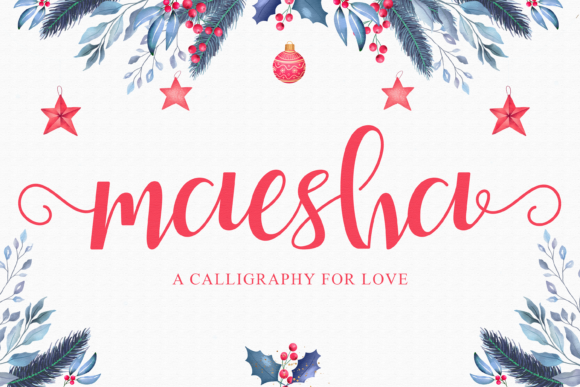
Maesha Font, a creation of DYSA Studio, is an exquisite script font that embodies elegance and grace. Inspired by the allure of fashion blogs, Maesha exudes a timeless charm that effortlessly elevates designs with its delicate strokes. Its graceful curves and intricate details evoke a sense of sophistication and femininity, making it the perfect choice for adding a touch of refinement to logos, business cards, and invitations. With Maesha Font, your words will come alive with a touch of handwritten allure, captivating your audience with its undeniable beauty. Embrace the timeless allure of Maesha Font and let your designs radiate with style and sophistication.
As a business owner, you understand the importance of branding that resonates with your audience. Maesha Font's ability to command attention and convey a sense of sophistication and style will help you create a brand identity that effortlessly attracts the right customers. Whether you're crafting a stunning logo, designing captivating social media graphics, or creating eye-catching marketing materials, Maesha Font's elegance and charm will elevate your designs, ensuring that your brand stands out from the competition.
For personal use, Maesha Font is the secret weapon for adding a touch of timeless style to life's precious moments. Imagine the delight of receiving a heartfelt thank-you note handwritten in Maesha Font, its delicate strokes conveying the depth of your gratitude. Or the joy of capturing special memories in a scrapbook, each page adorned with Maesha's graceful curves, transforming them into cherished heirlooms. Birth announcements, invitations, and greeting cards take on an enchanting charm with Maesha Font, making every occasion truly unforgettable.